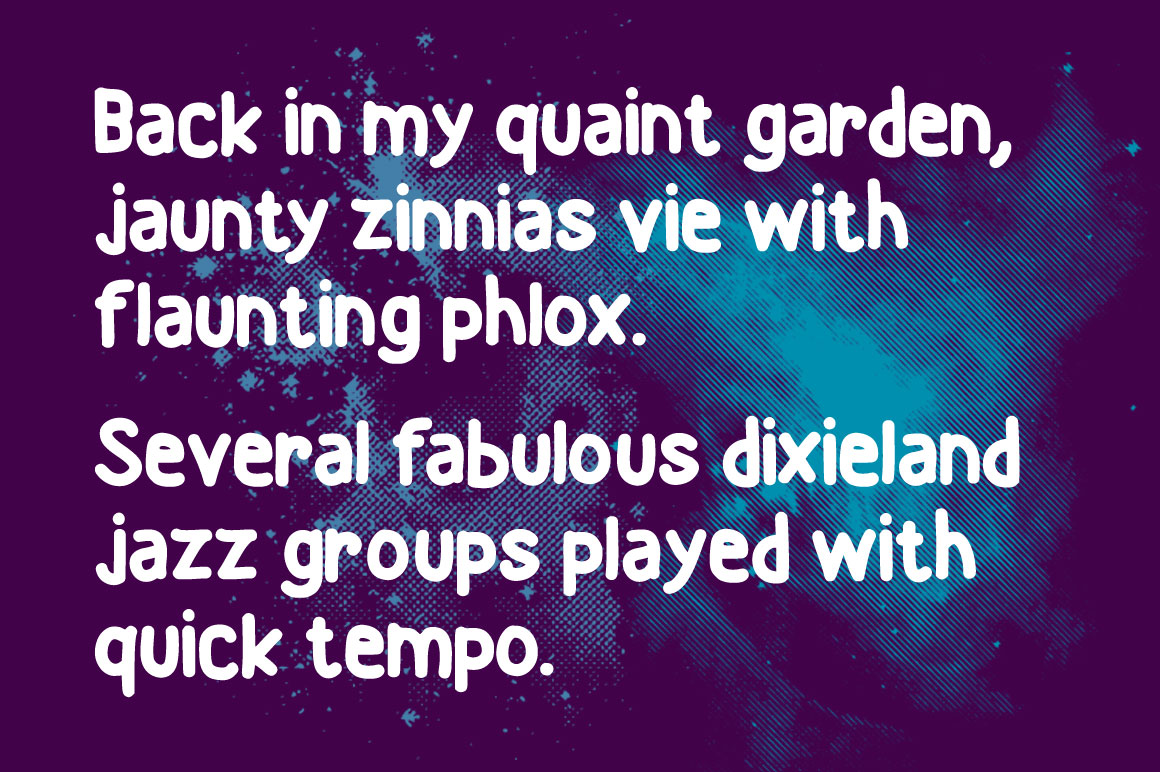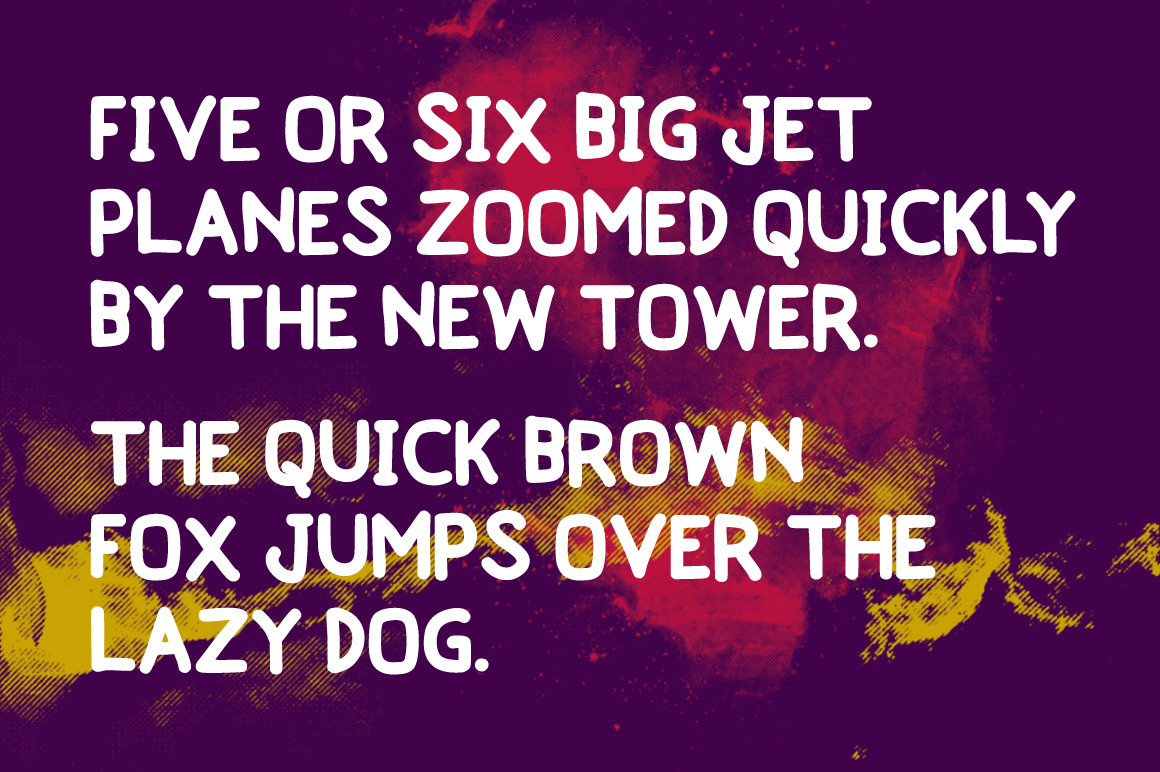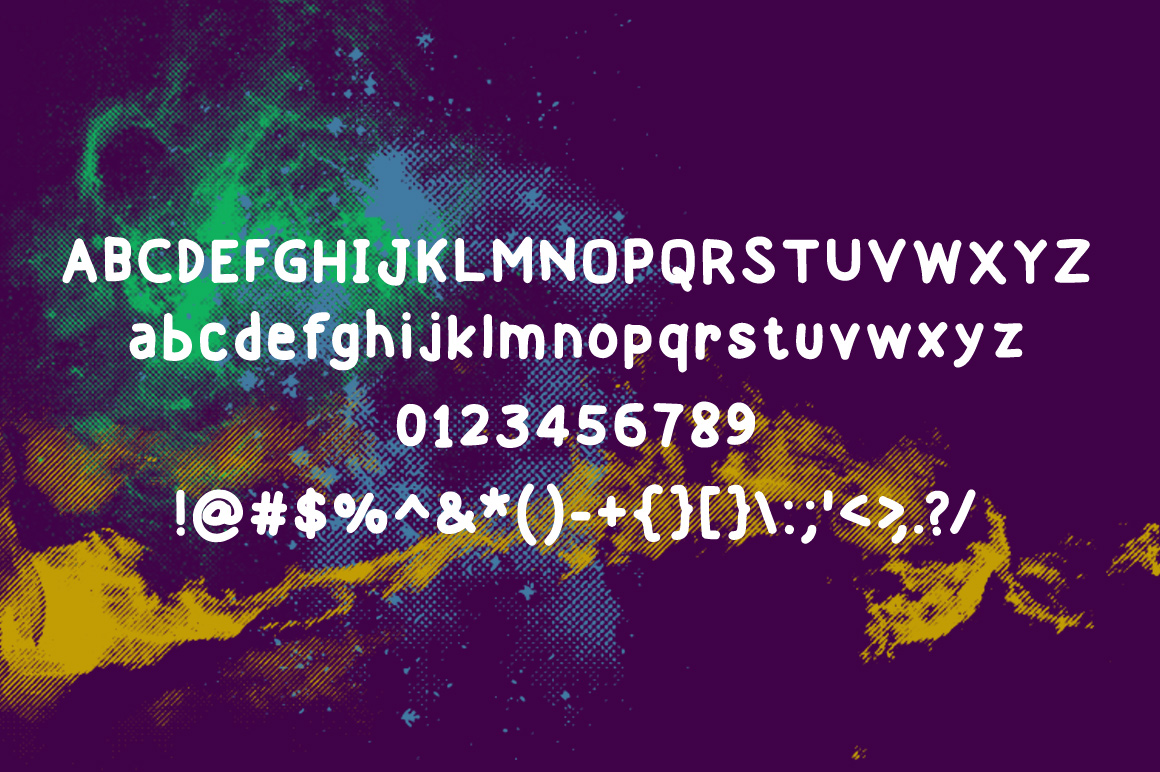
Introduction to Isrety Font
Isrety is a modern display, casual display font created by Seemly Fonts.
Key Features of Isrety Font
Why Choose Isrety Font?
Isrety Font offers exceptional quality and versatility, making it a valuable addition to your design toolkit. Whether you’re creating for personal projects or commercial use, Isrety Font delivers professional results.